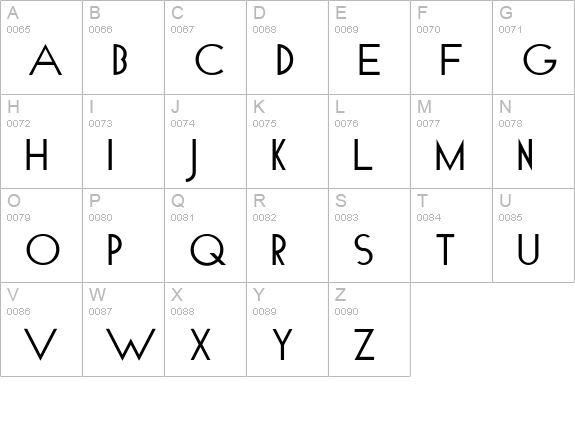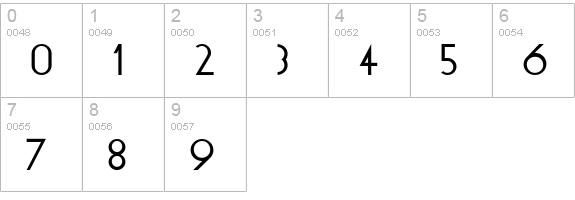
GeoPlain Font Details
GeoPlain is a sleek and modern font that exudes sophistication and versatility. With its clean lines and geometric shapes, this font is perfect for a wide range of design projects, from branding to web design to print materials. The simplicity of GeoPlain allows it to stand out while maintaining a sense of elegance and professionalism. What sets GeoPlain apart is not only its striking aesthetic appeal, but also the fact that it is completely free to download. You can easily access this stylish font at FontsMarket.com, making it accessible to designers of all levels looking to elevate their projects with a touch of contemporary flair. Whether you're creating a logo, designing a website, or crafting marketing materials, GeoPlain is a versatile choice that will add a modern edge to your work. Download GeoPlain today and see how it can enhance your design projects effortlessly.